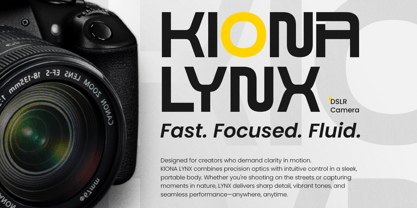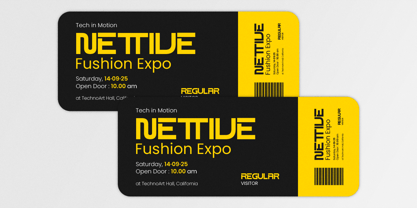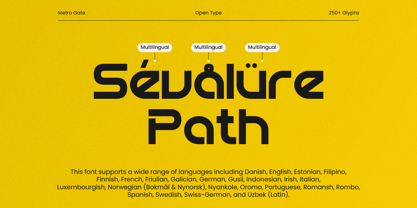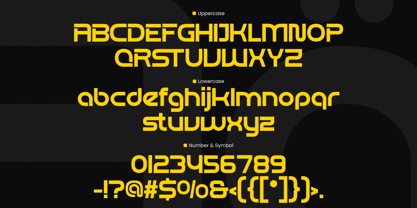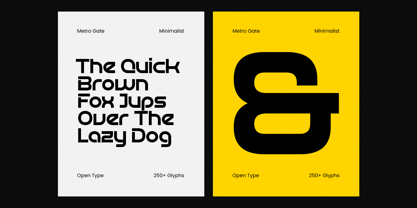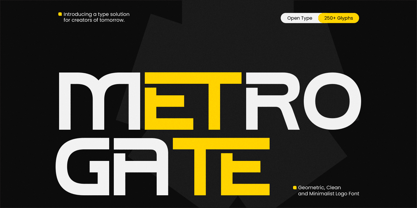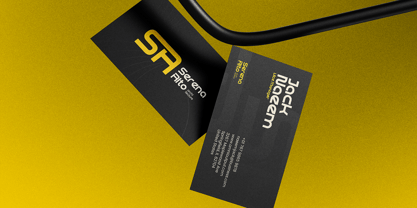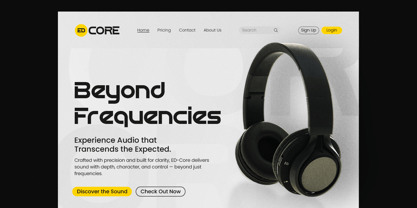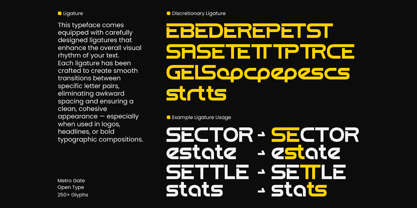
Metro Gate
The Metro Gate Font Family was designed by Muhamad Yusron Billah and published by Sronstudio. Metro Gate contains 1 styles. More about this family
Metro Gate is a clean and minimalist geometric sans serif font designed for modern aesthetics. With its sharp lines, balanced proportions, and timeless simplicity, this font is perfect for branding, editorial layouts, websites, packaging, and logos. Metro Gate combines clarity with elegance, making it ideal for projects that demand both professionalism and style. What’s Included: - Ligature - Uppercase & lowercase letters - Numerals & punctuation - PUA encoded for easy access - Multilingual support - Works on both Mac and Windows Thank you very much 🙂